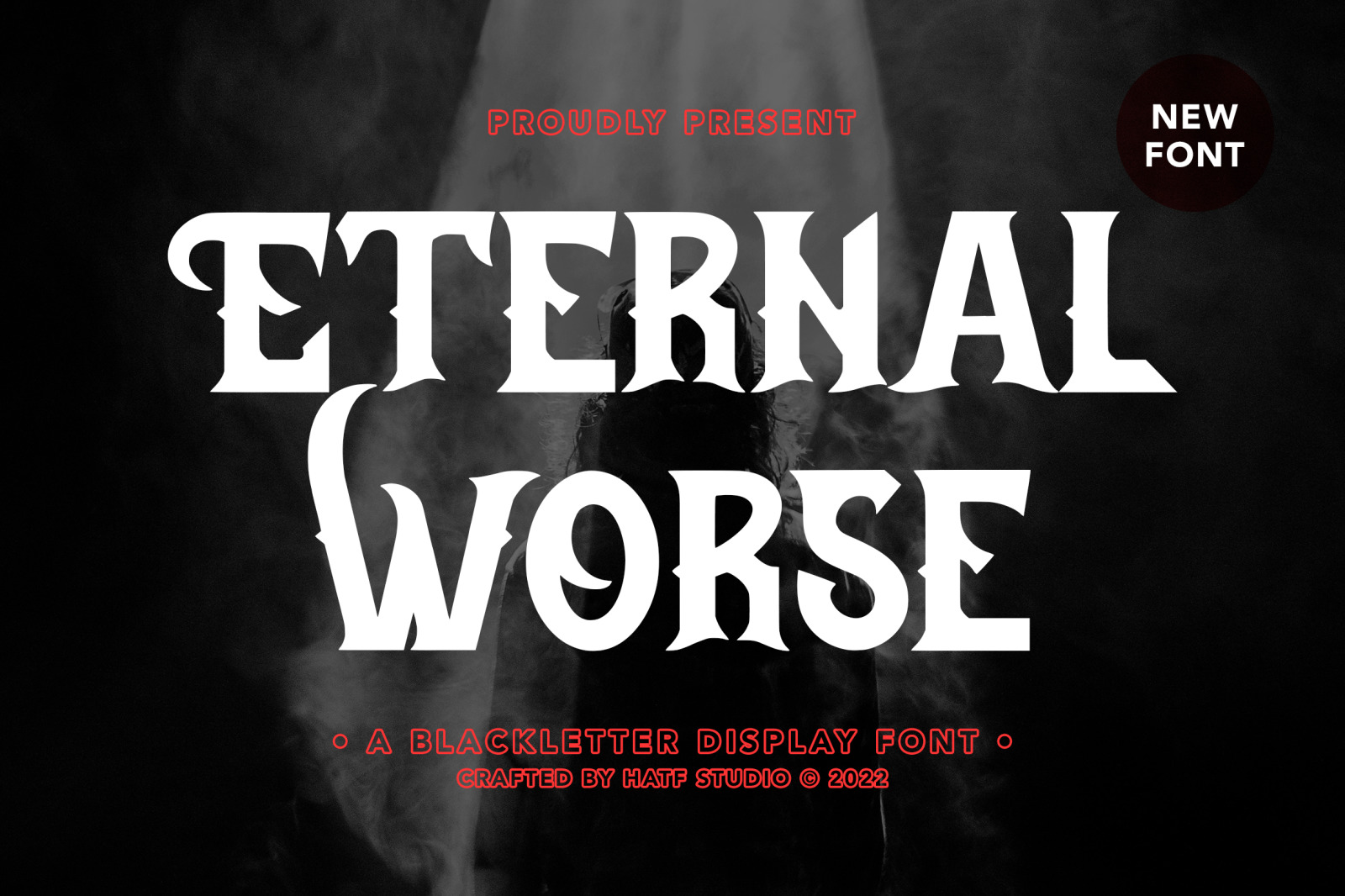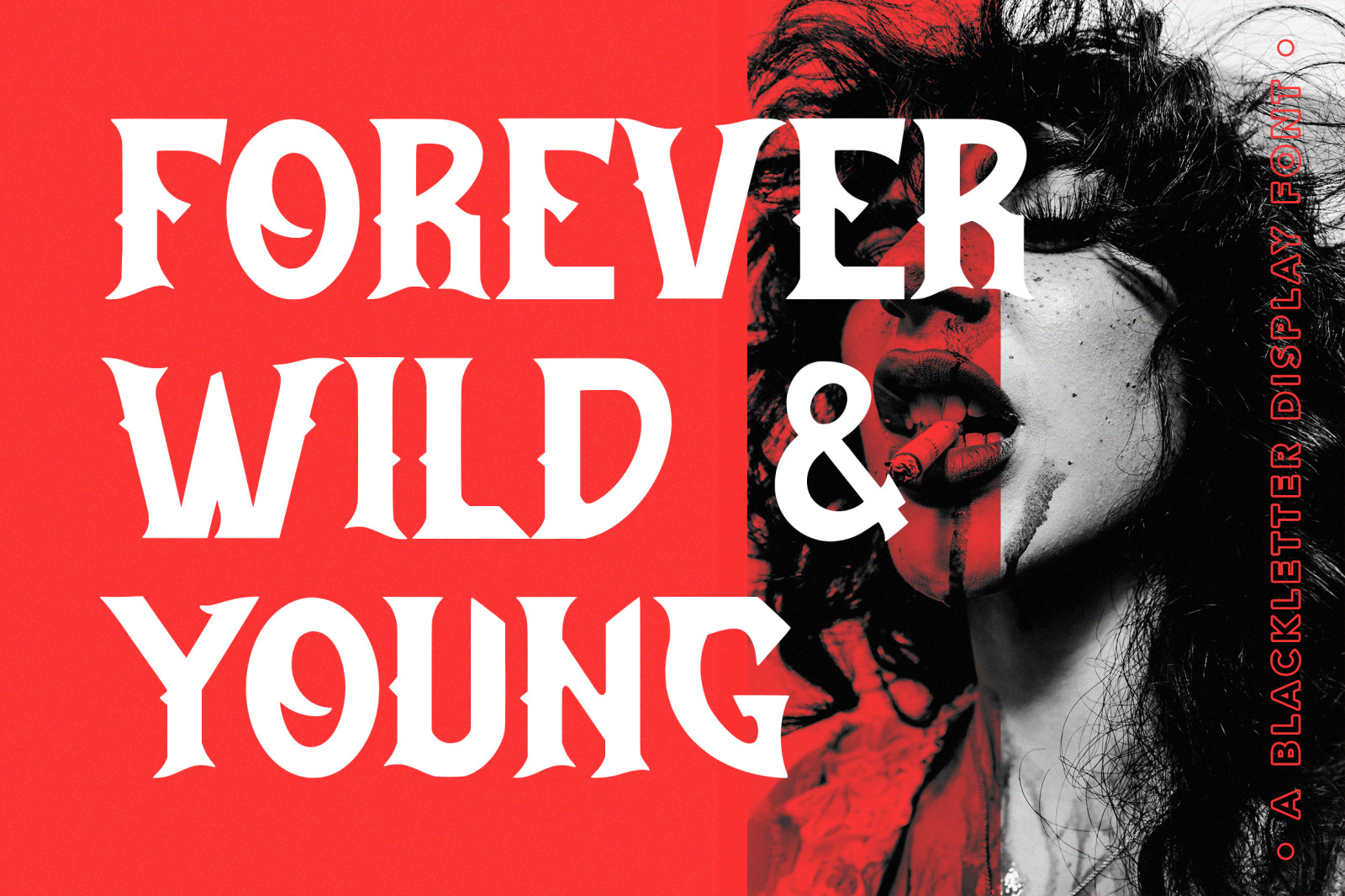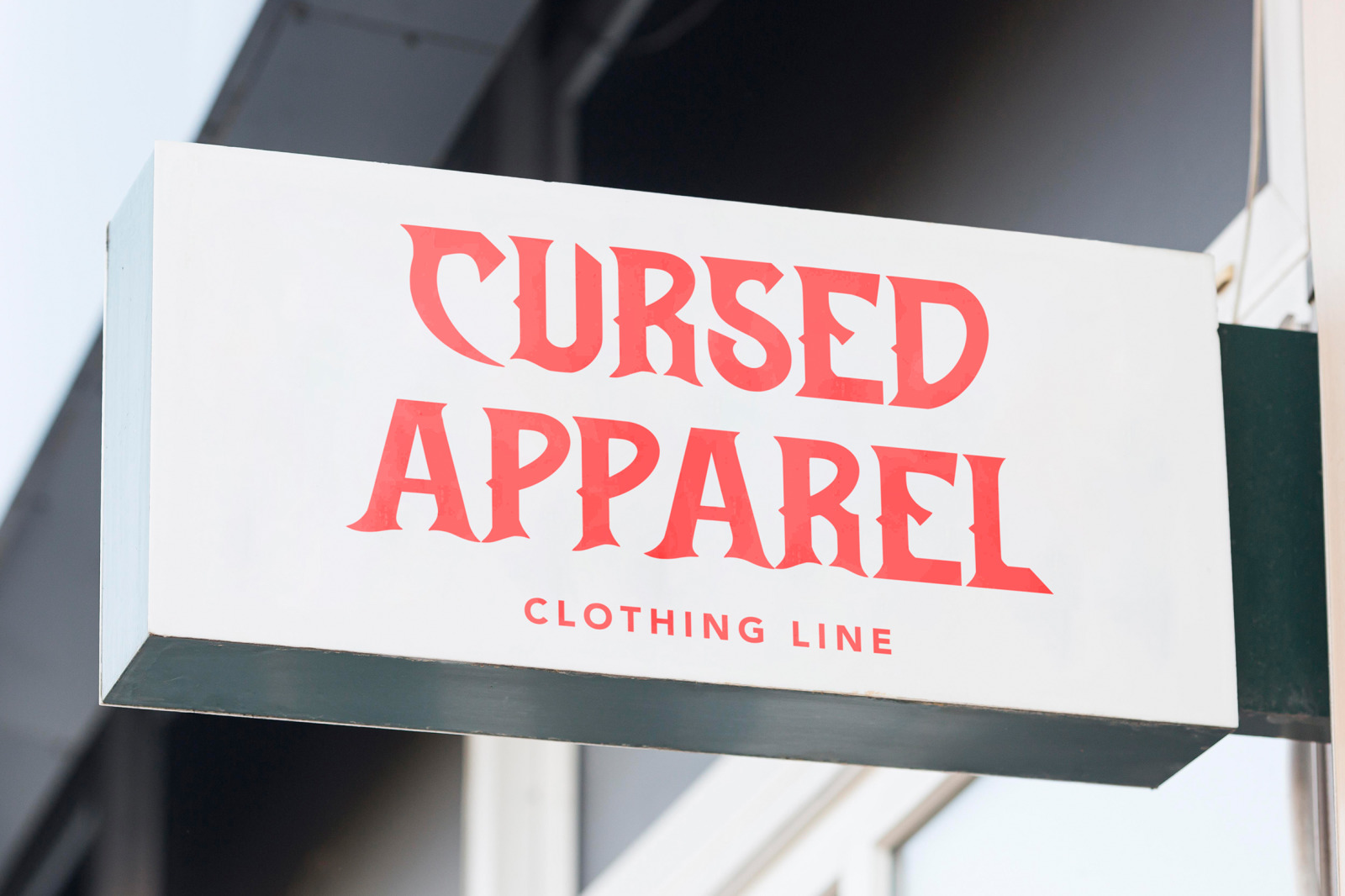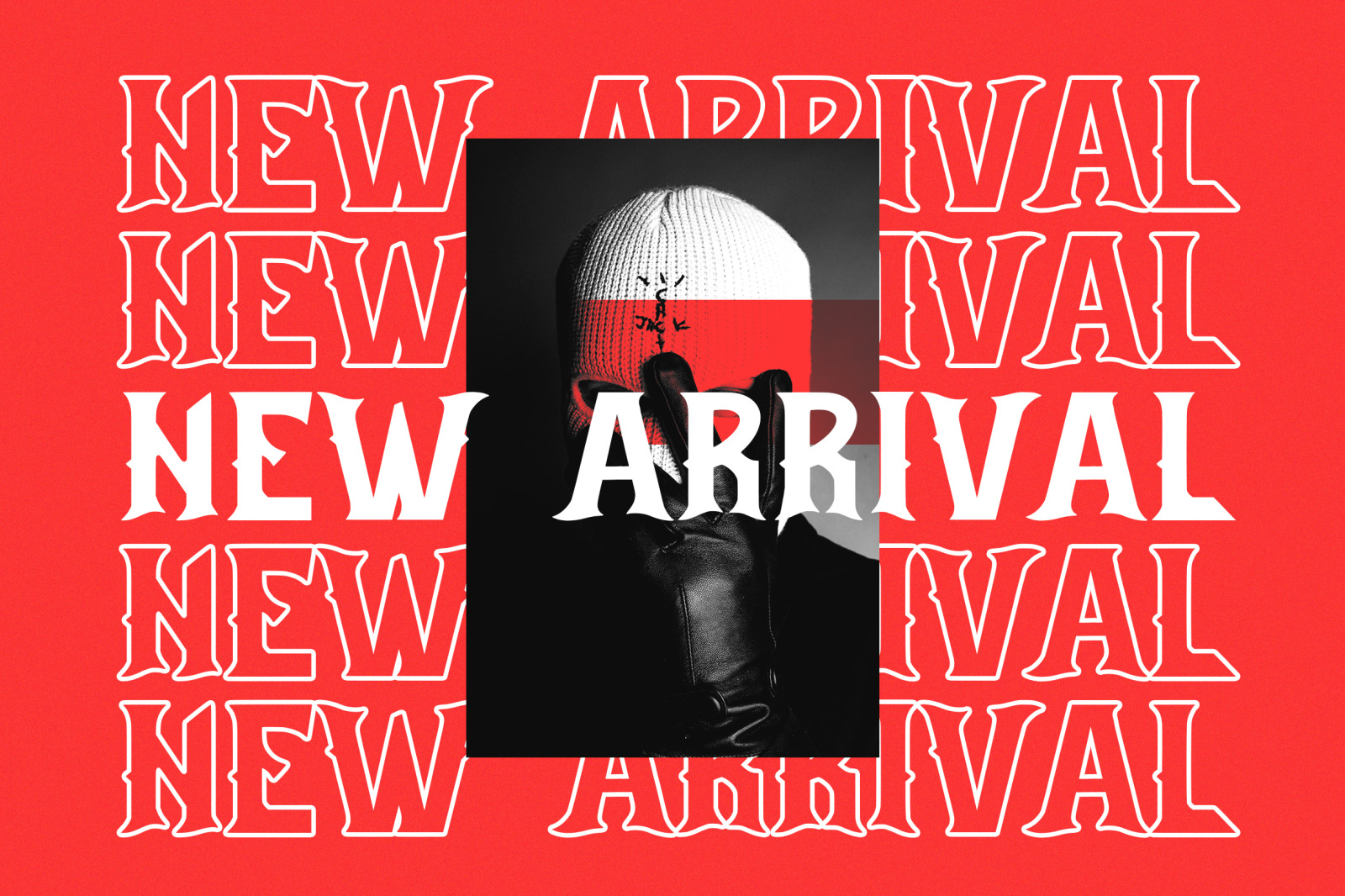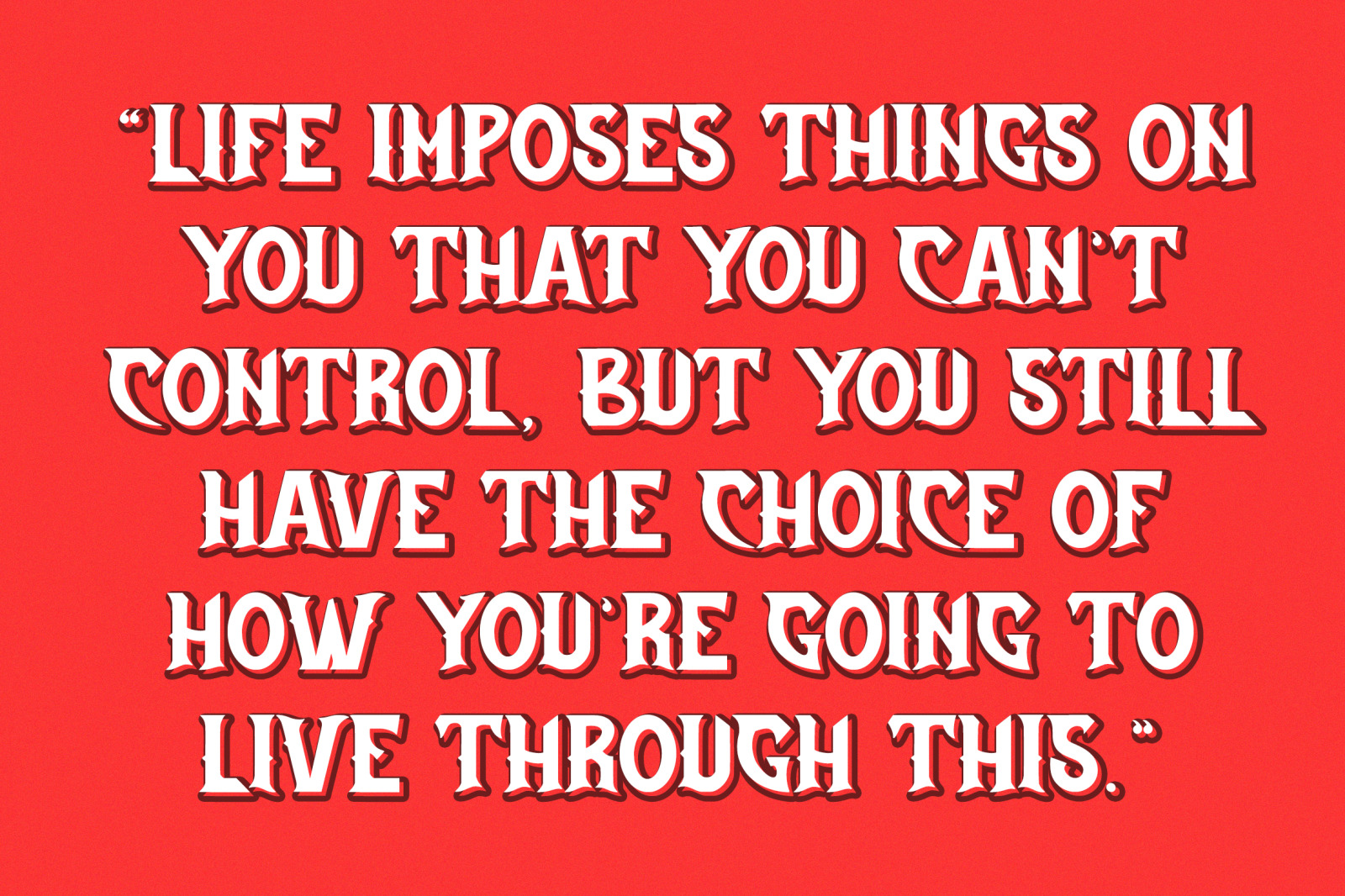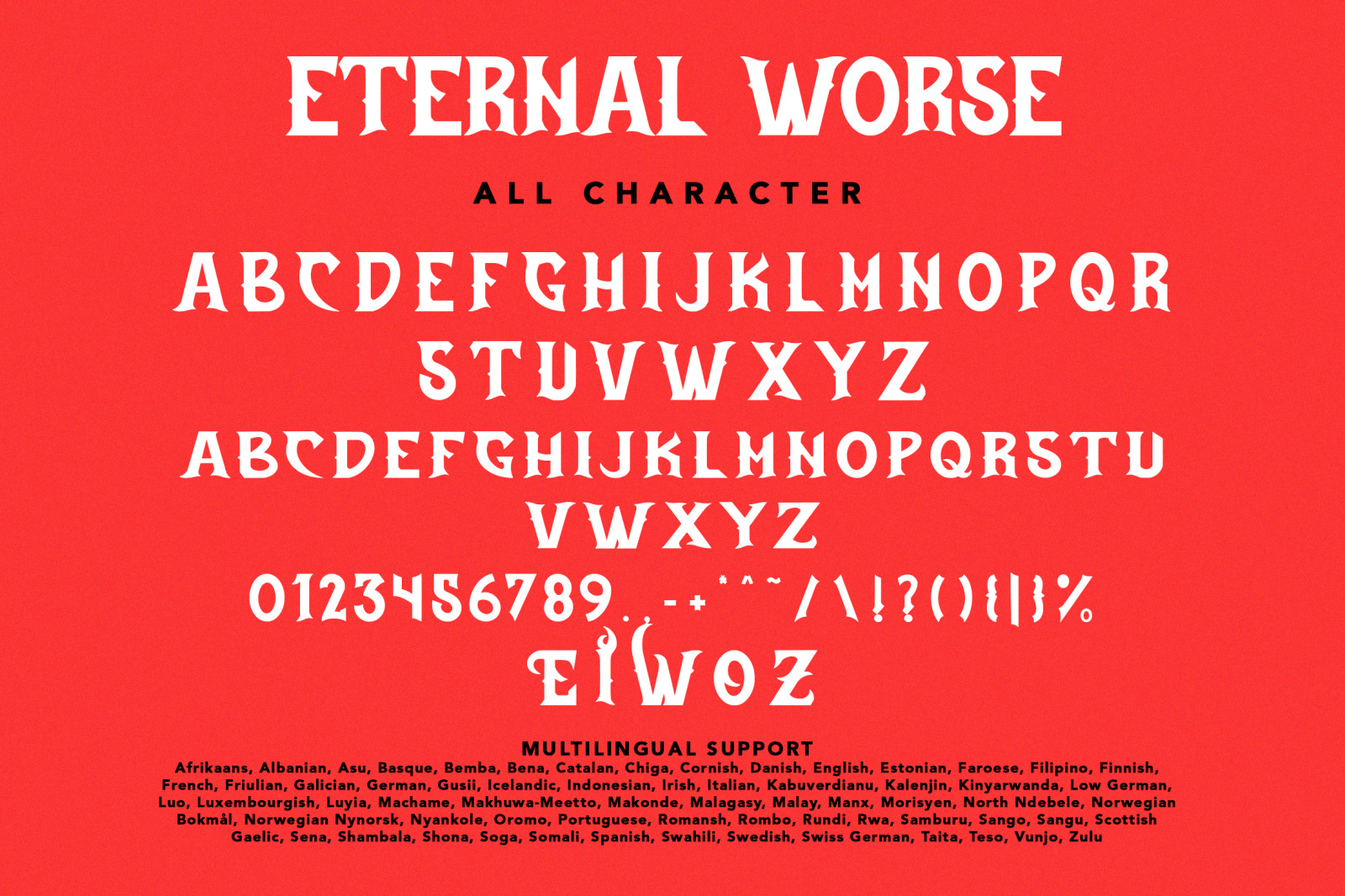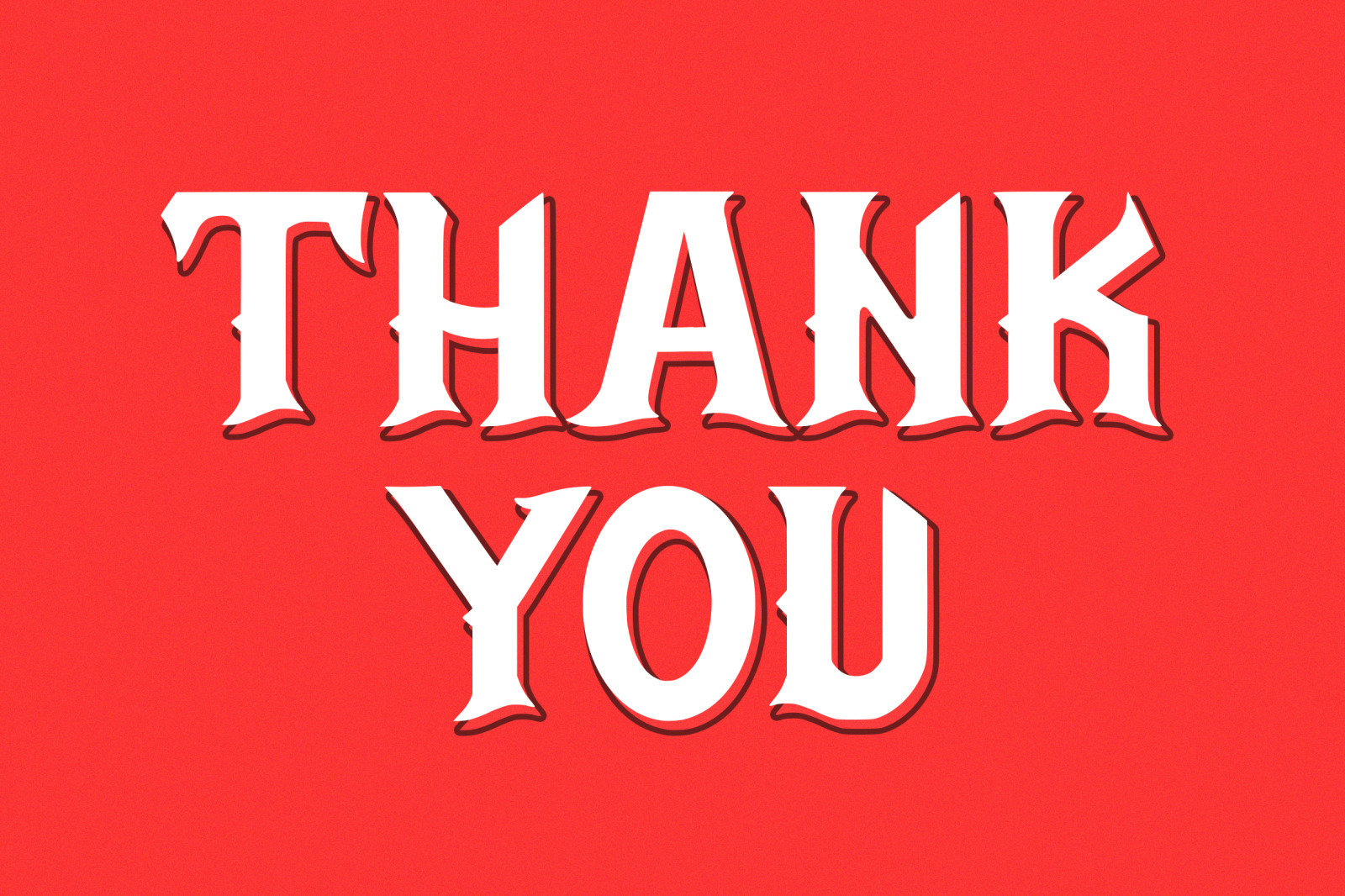
Eternal Worse Font
Is a blackletter typeface font that is inspired by gothic and horror style because it’s shape is very unique and is perfect for any project that you will use with this theme.
Feature :
* Symbol
* Number
* Punctuation
* Multilingual support